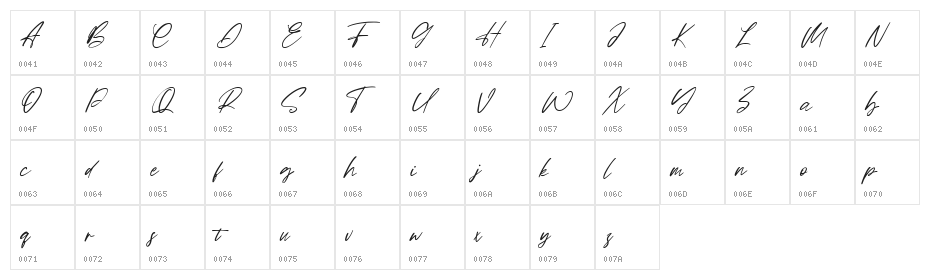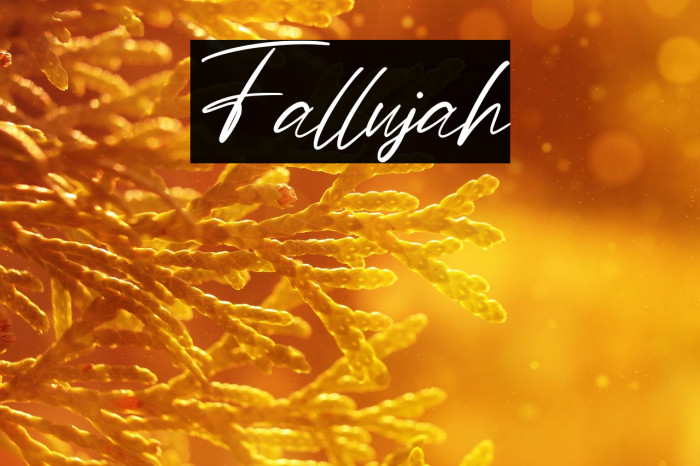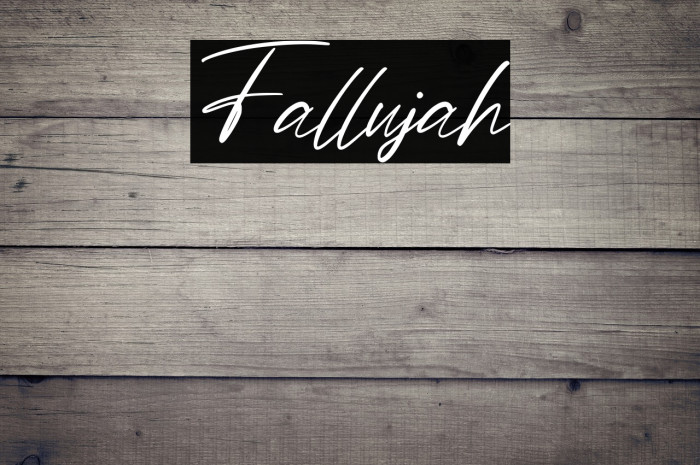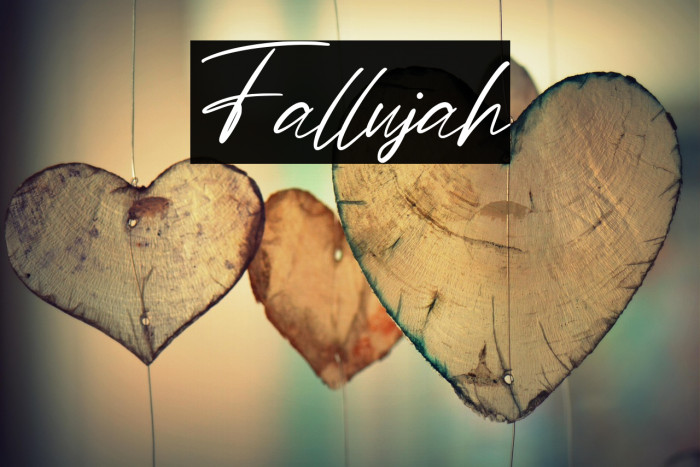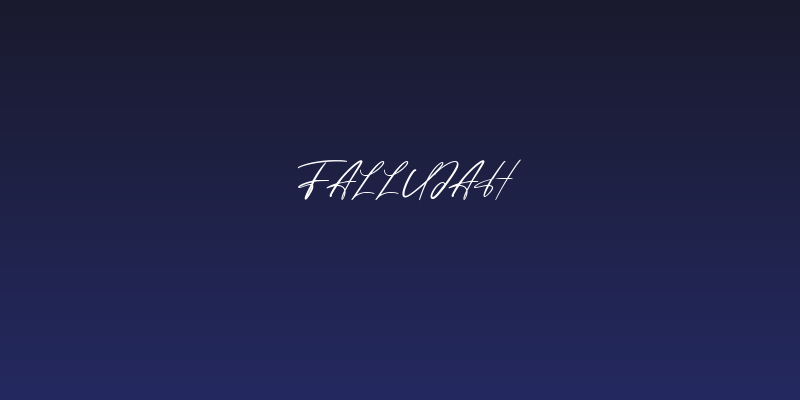
Fallujah Font
Fallujah Description
This elegant script font features fluid, cursive strokes that convey a sense of sophistication and grace. The letters are interconnected, creating a seamless flow that mimics natural handwriting. The uppercase letters are slightly more elaborate, with extended loops and flourishes, while the lowercase letters maintain a consistent rhythm and balance. The font's thin lines and delicate curves make it ideal for adding a touch of elegance to any design. Its overall appearance is both modern and timeless, suitable for a variety of creative applications.
| Overall Style | Elegant, Modern |
| Use Case | Logos, Invitations, Decorative text |
| Proposed Projects | Ideal for wedding invitations, greeting cards, branding, and elegant logo designs. |